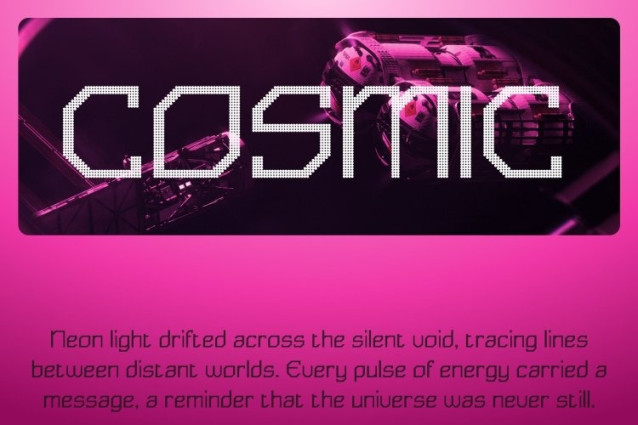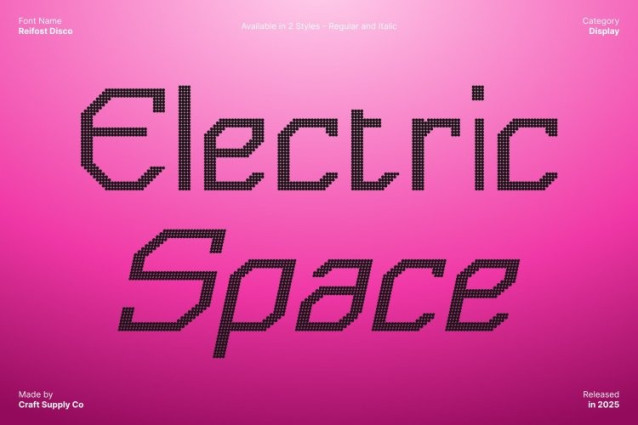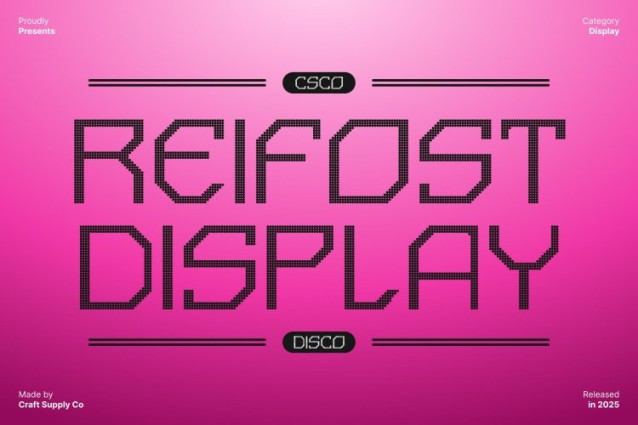
Reifost Disco Font This is a techno-inspired sans serif font designed to radiate modern energy and futuristic style. Its clean, geometric letterforms combine precision with digital sophistication, creating a sleek and contemporary look. The added disco effect infuses the font with dynamic visual flair, making every design feel lively, bold, and ready for high-impact display.
Futuristic Sans Serif, Modern Designs
The structured, geometric forms of this font give it a confident presence. Its sans serif construction ensures clarity and legibility, while the modern shapes convey a sense of innovation and forward-thinking design.
Disco Effect for Vibrant Visual Impact
The integrated disco styling adds movement and a subtle retro-futuristic sparkle, amplifying the techno personality of the font. This effect creates a striking sense of energy and rhythm, ideal for designs that demand attention and a modern, digital-inspired vibe.
Perfect for Branding, Logos, and Poster Designs
This font shines in branding, logos, posters, digital campaigns, and tech-focused visual projects. Whether you’re creating futuristic brand identities, eye-catching event graphics, or bold editorial layouts, this font delivers modern energy, stylish disco flair, and unmistakable digital sophistication, ensuring every project feels vibrant, contemporary, and visually engaging.